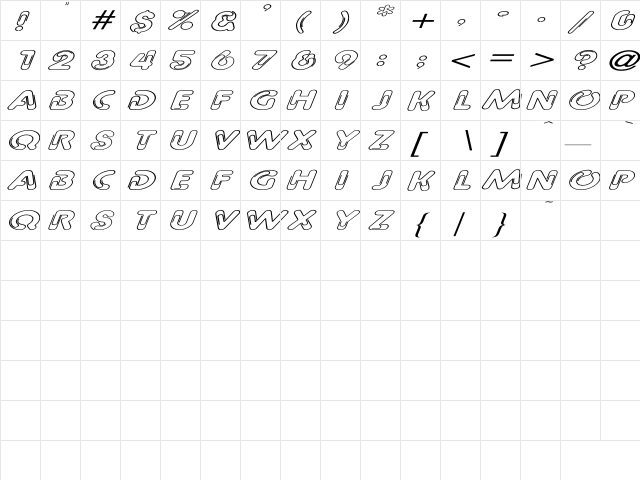
Paper Clip Ex Italic Italic
Design Context for Paper Clip Ex Italic Typeface
Paper Clip Ex Italic is a composed and adaptable typeface that performs quietly and consistently across a wide range of design contexts. Its italic angle brings a sense of urgency and motion to the letterforms.
Pro Tip: Use Paper Clip Ex Italic for emphasis, pull quotes, and subheadings where its slanted energy can add rhythm to the layout.